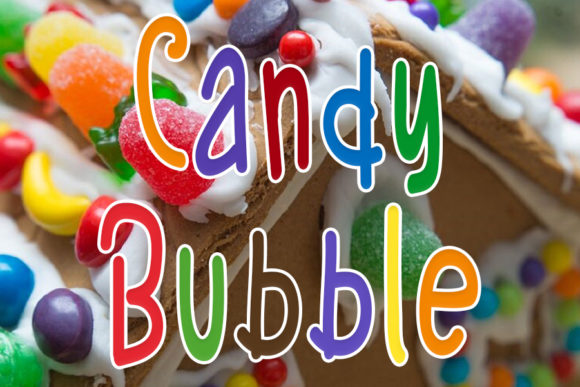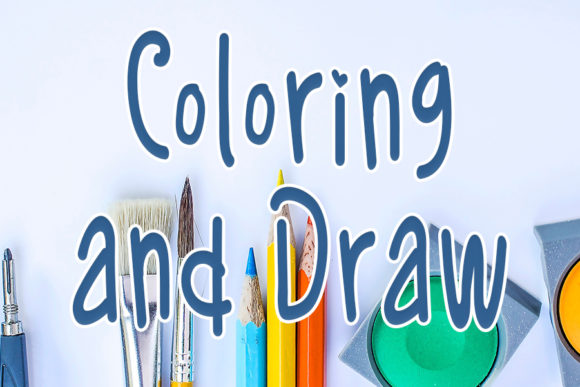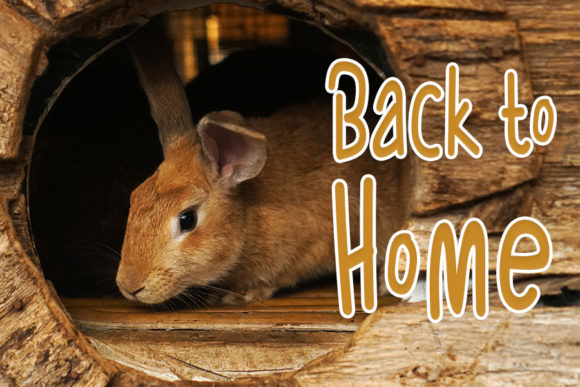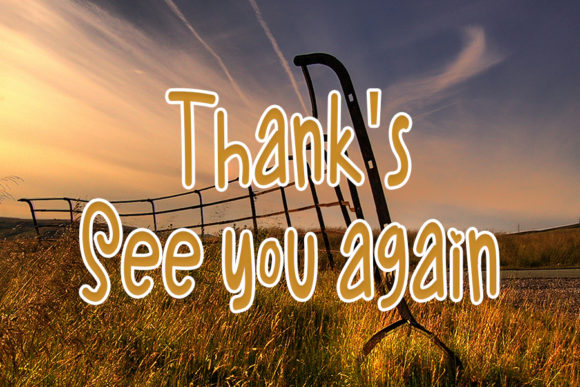
Rabbit Tile Font
About Rabbit Tile Font
Rabbit Tile is a cute and quirky handwritten font. Friendly and a bit sloppy, this font will fit any design you can think of bringing to life!